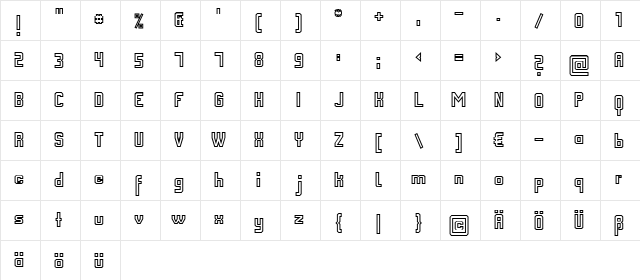
FM College Team outline Regular
Design Context for FM College Team outline Typeface
FM College Team outline brings high-energy athletic personality to the page — its confident, muscular forms are built for impact.
Built for sports team identities, athletic apparel, event posters, and high-energy promotional material.
Pro Tip: FM College Team outline thrives on contrast — try it large, bold, and tight against a clean background for maximum visual impact.